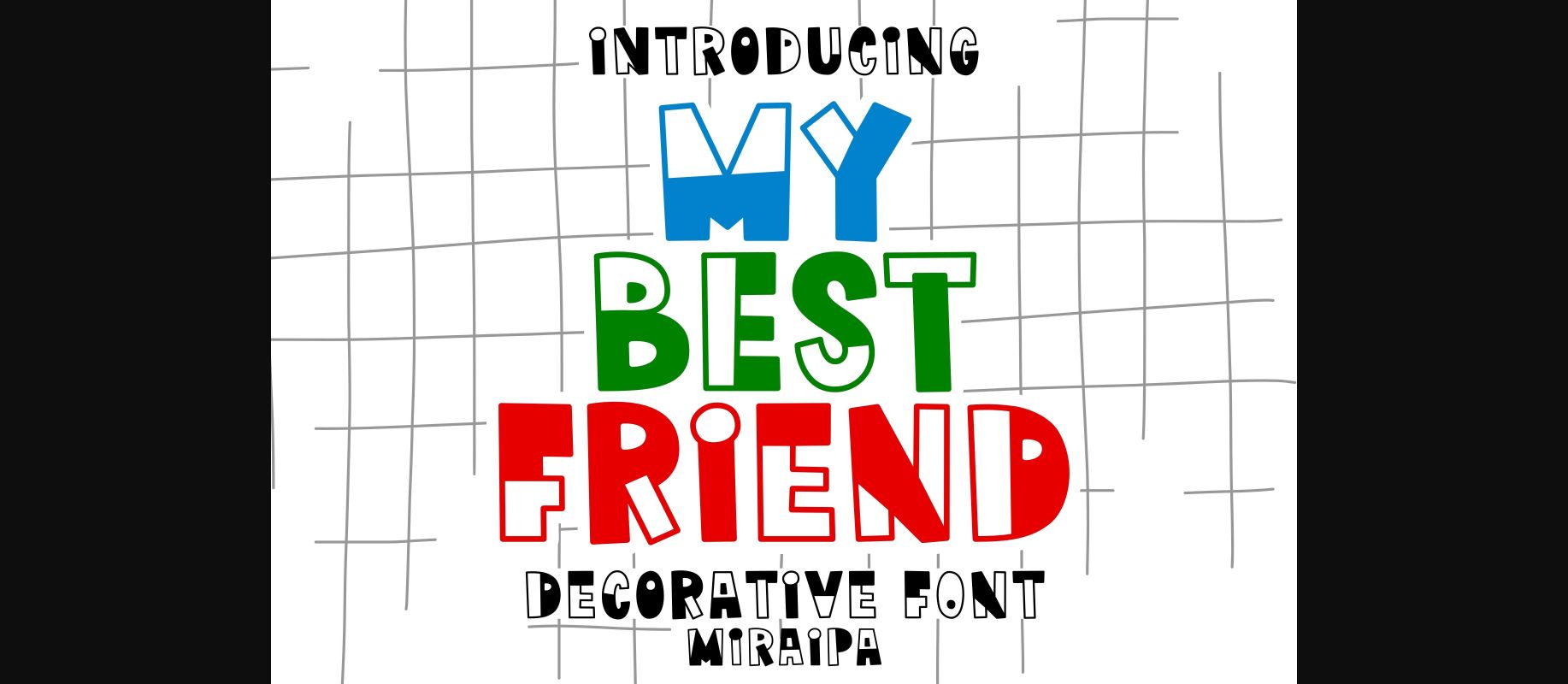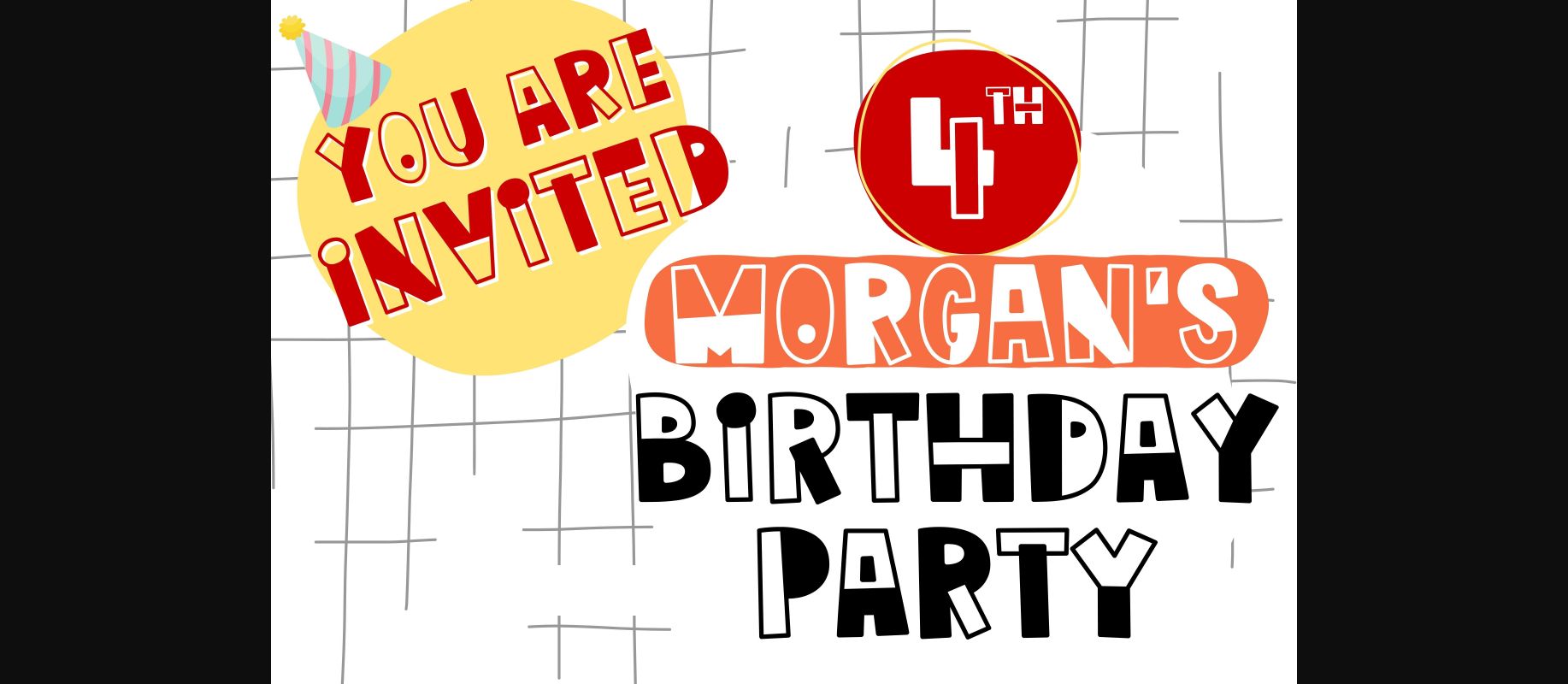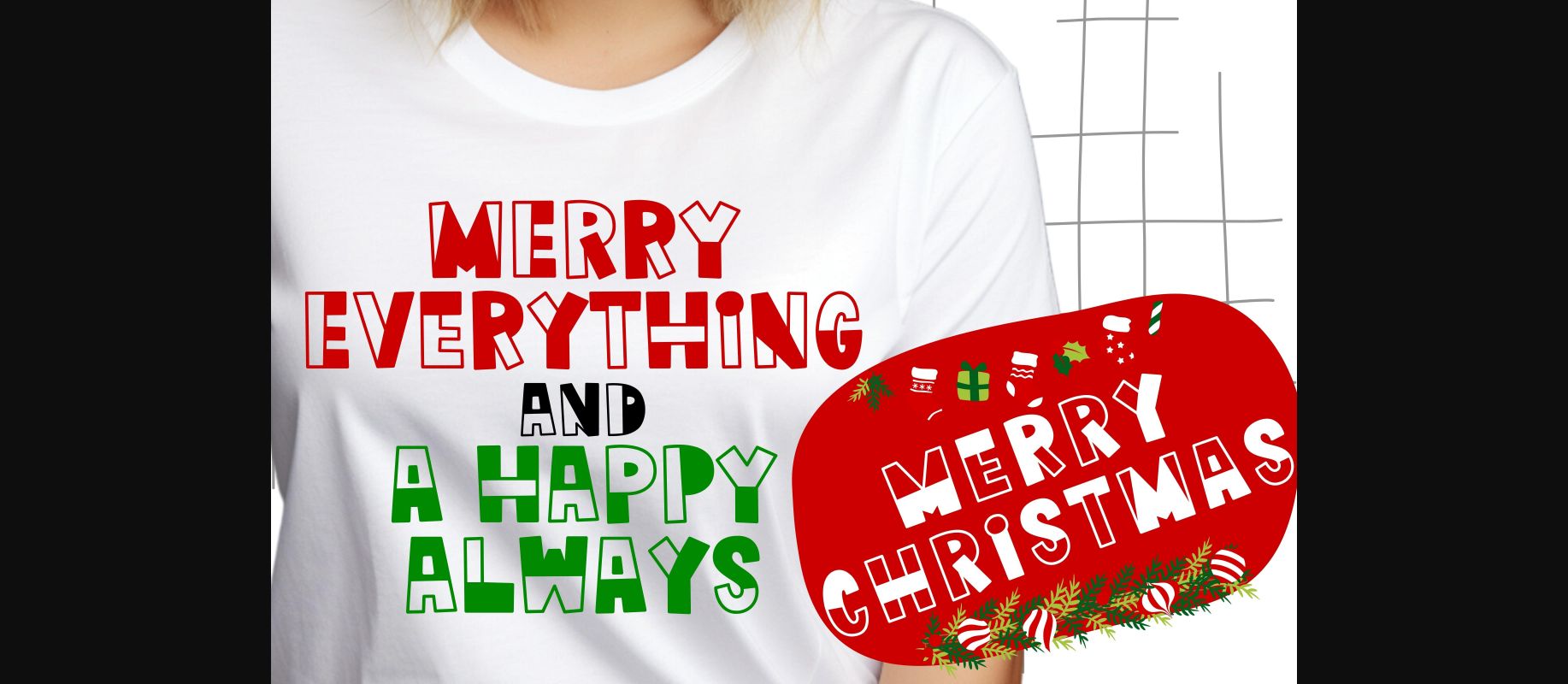
About My Best Friend Font
My Best Friend is designed in a playful and adorable decorative font style. It’s charming, whimsical, and awesome for your fun projects, colorful designs, and chile-relate projects. Let’s try it for your perfect projects such as mom projects, weddings, back to school, Easter, party decoration, invitations, Fall, Halloween, Christmas, posters, blogs, clothing, child-related designs, greeting cards, social media posts, or anything that needs a friendly touch. Add it now to your fonts library, and it will bring any of your DIY projects to life.